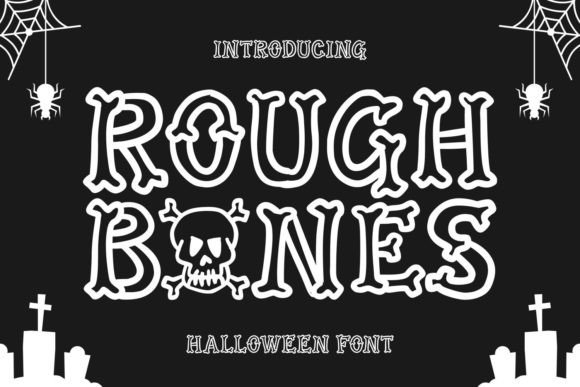
Craft an enchanting atmosphere for Halloween with our exclusive Rough Bones font. Its captivating outlined characters cast an eerie glow over your words, transforming them into haunting whispers perfect for chilling tales and spine-tingling invites.
Unleash your creativity and watch as Rough Bones breathes life into your Halloween designs. The crisp lines and spooky silhouette evoke a mystical ambiance, making it the perfect choice for eye-catching signs that will send shivers down the spines of passersby.
Let Rough Bones be your secret weapon for creating unforgettable Halloween experiences. Its versatility extends beyond signage, casting its spell on party invitations, social media posts, and any creative project that demands a touch of the supernatural.